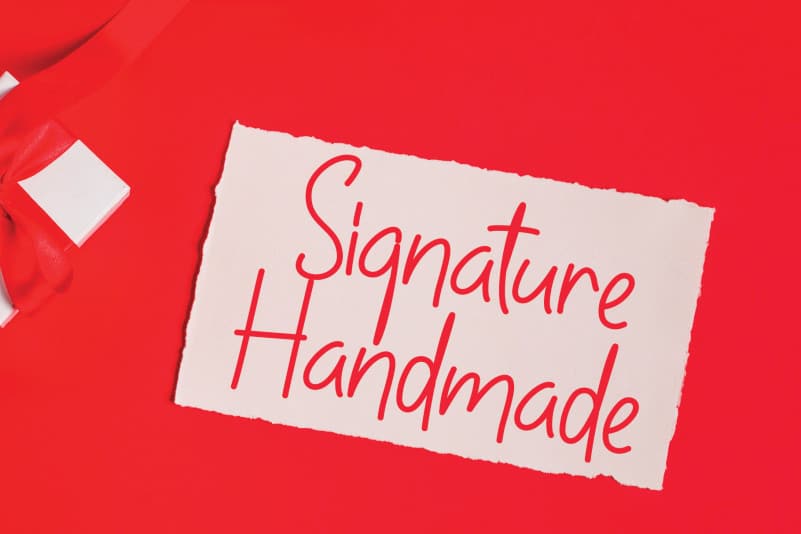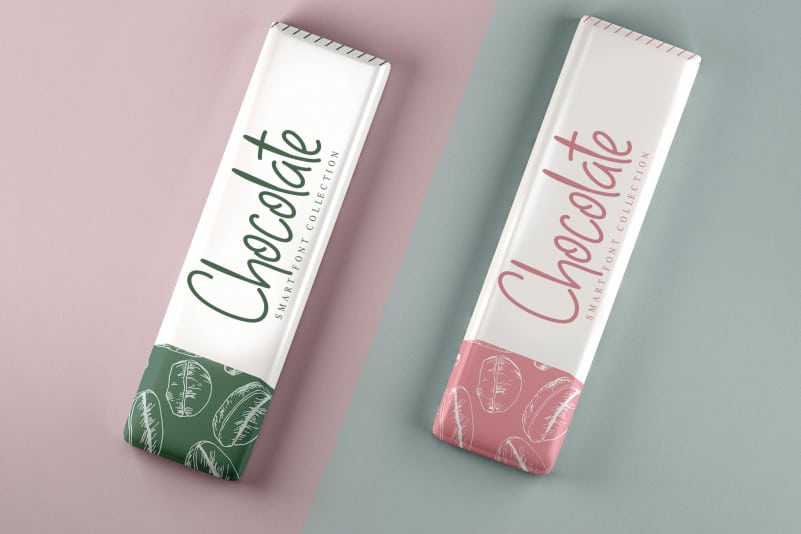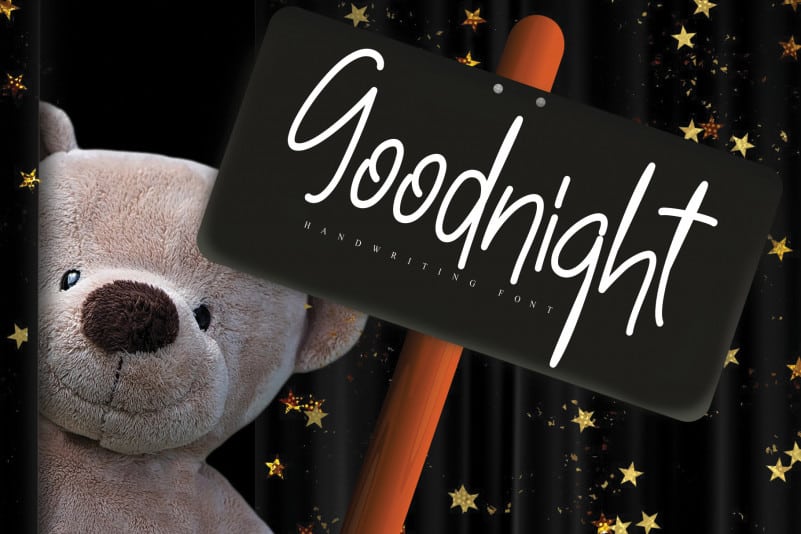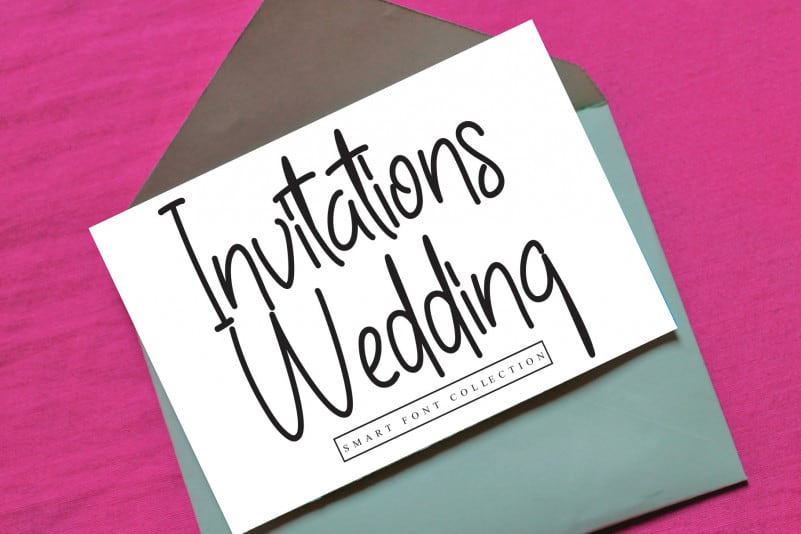
Amsterdam Mellodyna Handwritten Font
Introducing Amsterdam Mellodyna Handwritten Font. The latest style letters are perfect for wall displays, wedding invitations, social media post logos, advertisements, product packaging, product designs, labels, photography, watermarks, invitations, stationery, and any project that requires taste handwriting.